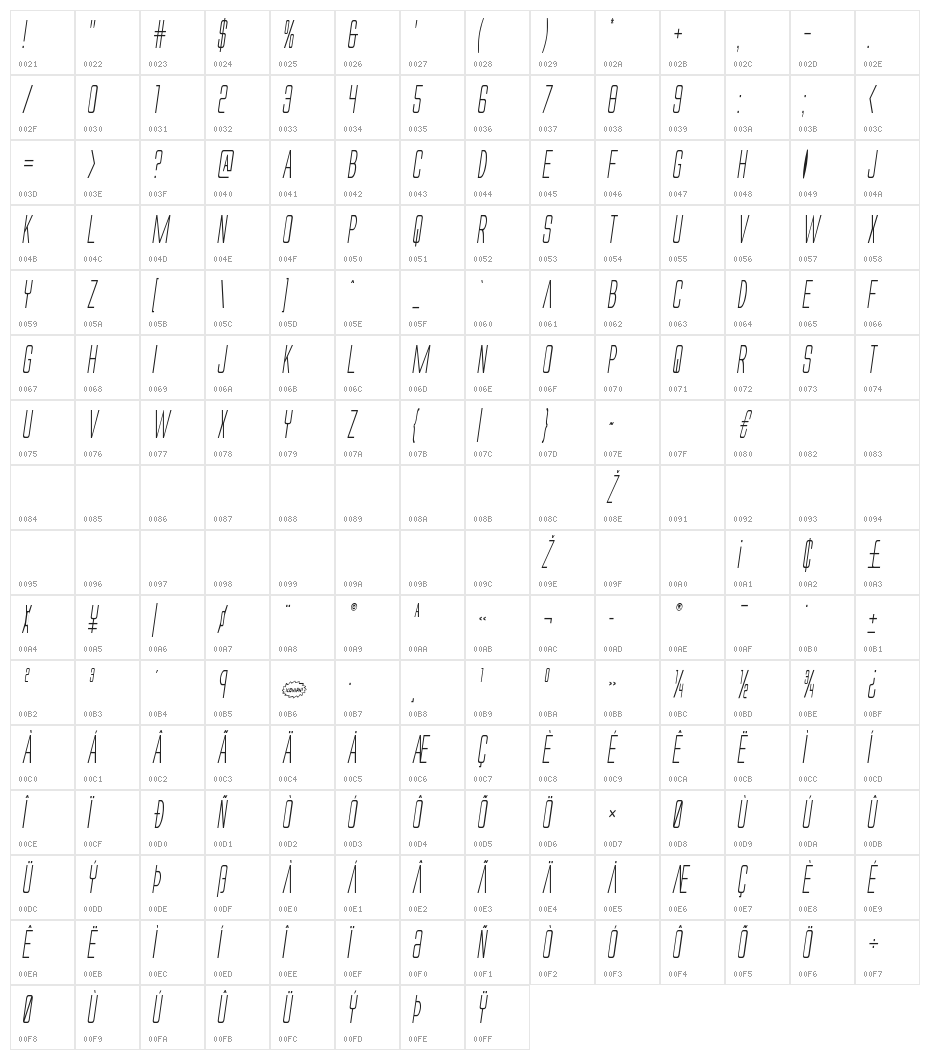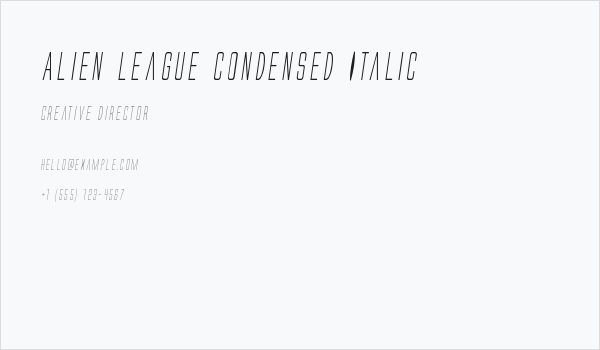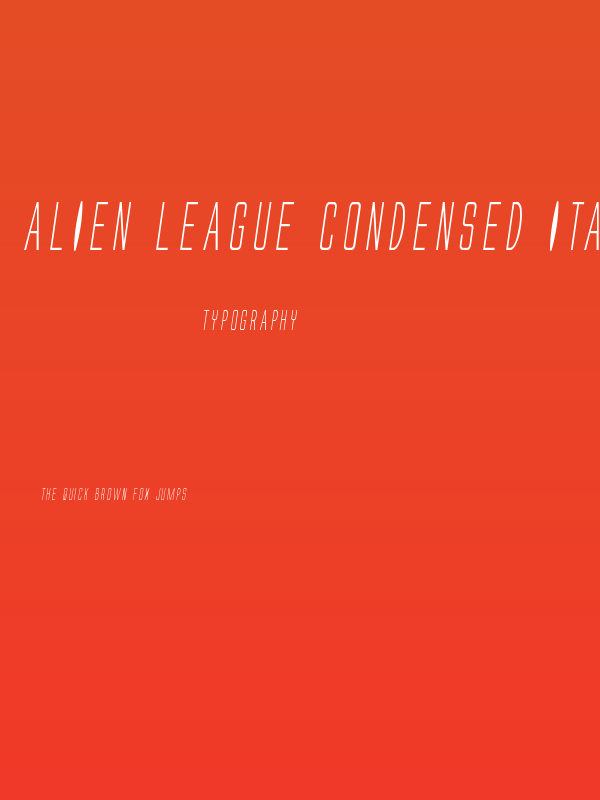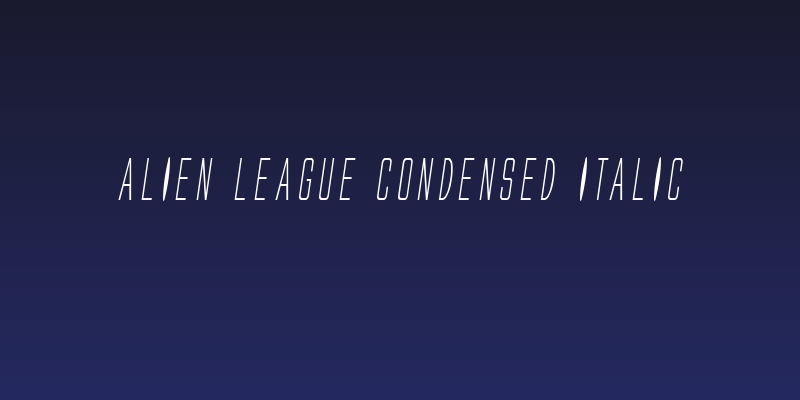
Alien League Condensed Italic Font
Alien League Condensed Italic Description
This font features a futuristic and sleek design with a condensed and italicized style. The characters are elongated and narrow, giving a sense of speed and modernity. The strokes are consistent in width, providing a uniform appearance across all characters. The uppercase and lowercase letters maintain a cohesive look, while the numerals and special characters complement the overall design. The font's angular and sharp edges contribute to its dynamic and energetic feel, making it suitable for projects that require a contemporary and cutting-edge aesthetic.
| Proposed Projects | Ideal for sci-fi themed designs, technology branding, sports team logos, and modern posters. |